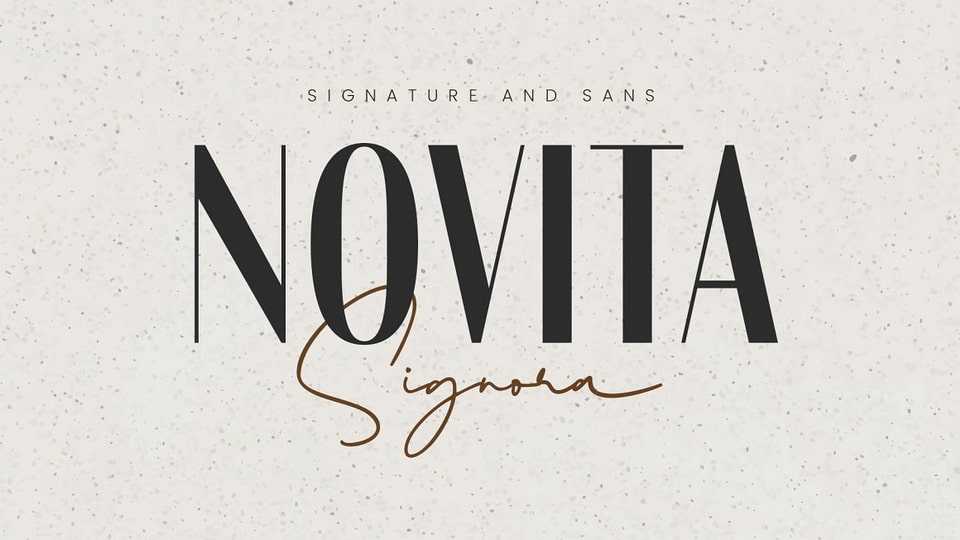
Download Novita Signora font, a modern and stylish condensed sans serif typeface. Use Novita Signora font for logotype, or heading, or mix and match it as an editorial, quotes, gorgeous wedding invitation, and more!